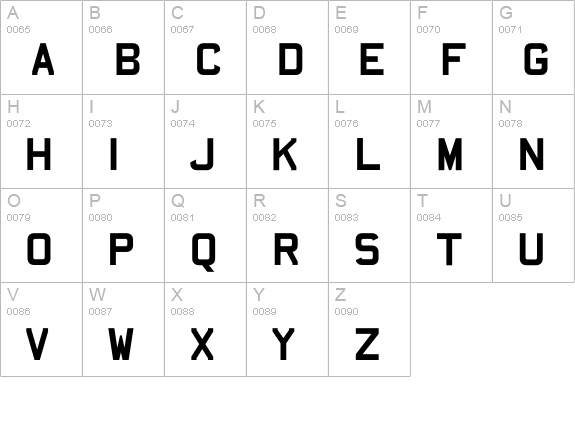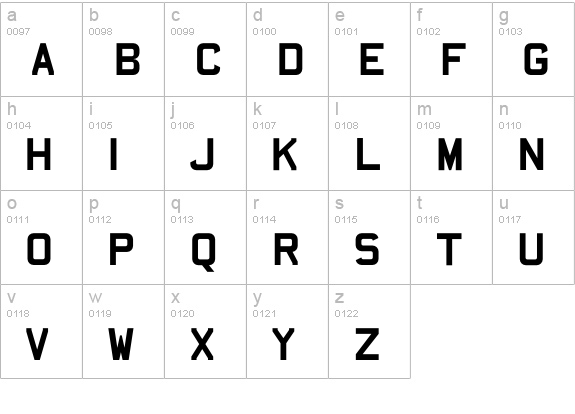
AFCarplates Font Details
Introducing AFCarplates font, a sleek and modern typeface designed for automotive enthusiasts and designers alike. Inspired by the clean lines and bold aesthetics of license plates, AFCarplates font brings a touch of sophistication to any project. Its sharp edges and distinctive characters make it perfect for creating eye-catching headlines, logos, and branding materials. What's even better is that AFCarplates font is available for free download at FontsMarket.com. This means you can easily incorporate this stylish font into your designs without breaking the bank. Whether you're working on a car-related project or simply looking to add a touch of flair to your work, AFCarplates font is sure to impress. Download it today and take your designs to the next level!